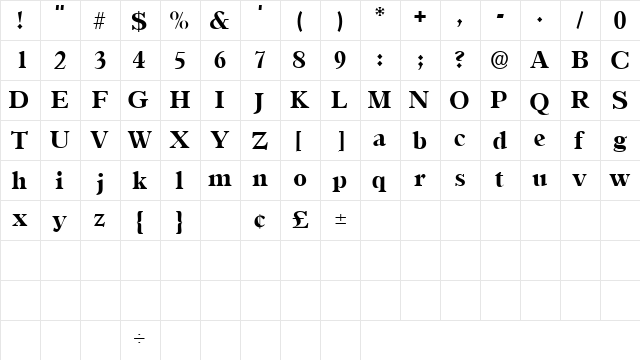
AgonicSSK Regular
Design Context for AgonicSSK Typeface
AgonicSSK offers clean, dependable letterforms without strong stylistic allegiance, making it a practical choice for designers who need flexibility.